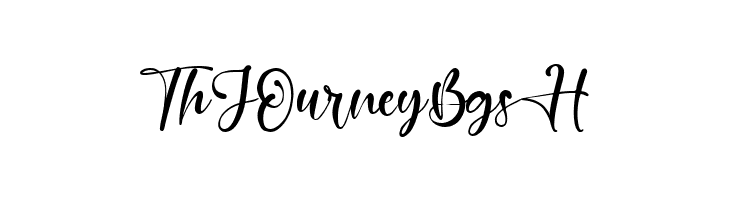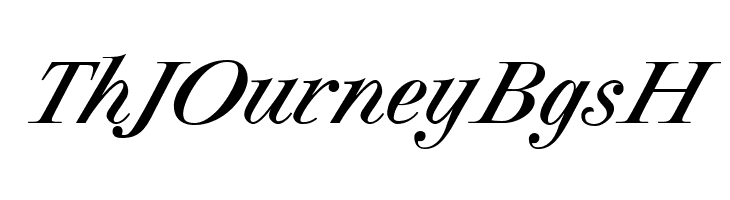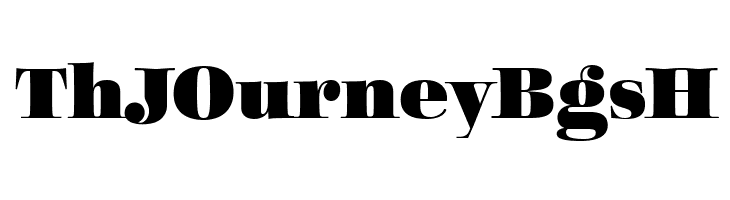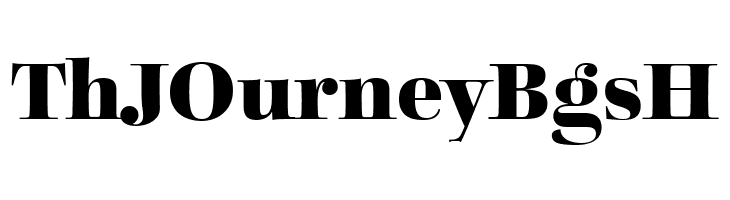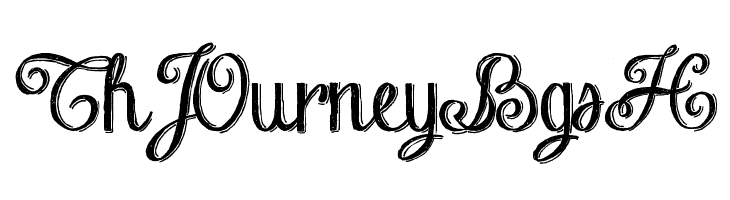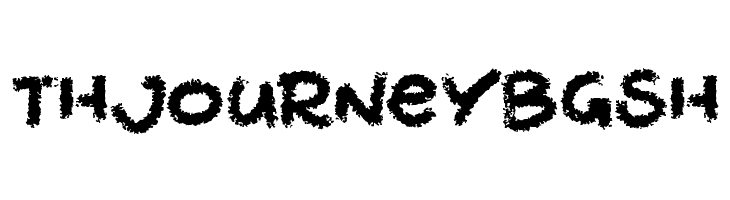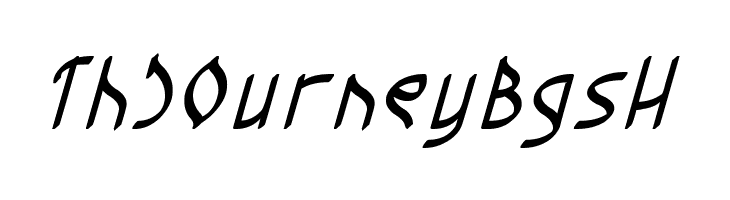
A whimsical, chalkboard-style font with elegant curls and a shaded effect.
A playful, textured font with a chalk-like, hand-drawn appearance.
A playful, chalk-like font with a hand-drawn, textured appearance.
A bold, handwritten-style font with dynamic, slanted characters.
An elegant and flowing script font with cursive letterforms.
A classic serif font with elegant strokes and balanced proportions.
A bold, high-contrast serif font with sharp serifs and a commanding presence.
A bold, high-contrast serif font with a classic and elegant style.
A bold, italic serif font with elegant curves and pronounced serifs.
An elegant italic font with classic calligraphic influences.